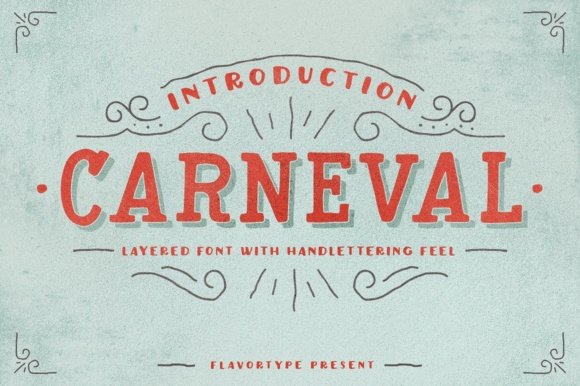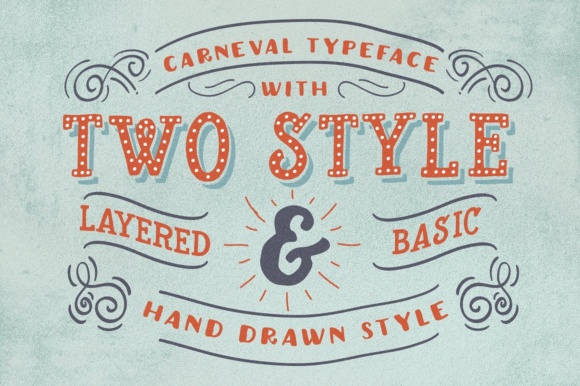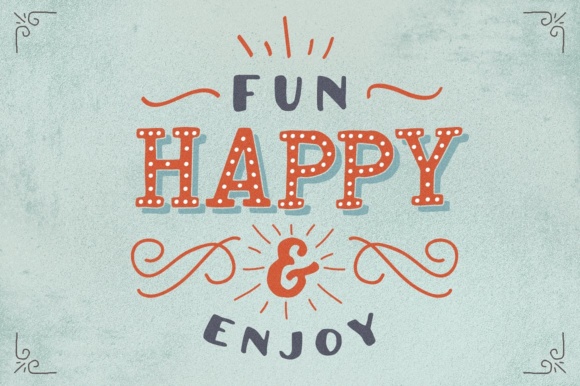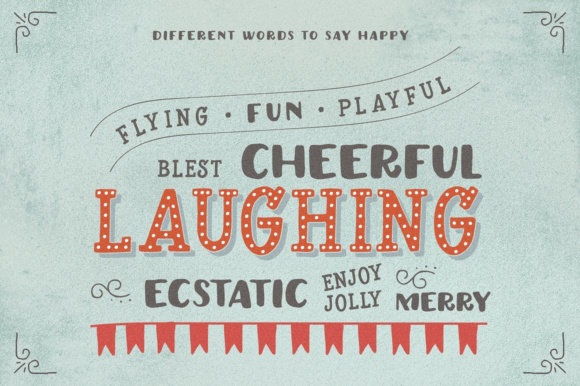
Get Ready to Step Right Up: Introducing the Carneval Font
Have you ever found yourself wandering through a bustling carnival, surrounded by vibrant colors, lively music, and the sweet scent of sugary treats? The thrill of the unknown and the excitement of discovery can be a powerful spark for creativity. And what if you could capture that same sense of whimsy and playfulness in your designs? Enter the Carneval Font, a delightful typographic creation that embodies the spirit of the carnival.
The Carneval Font comes in two styles, each with its own unique charm, allowing designers to tap into the carefree and eclectic nature of carnivals. Whether you’re working on a project that requires a touch of nostalgia or a dash of modern flair, this font is the perfect companion. By incorporating the Carneval Font into your designs, you can add a touch of magic and wonder that’s sure to captivate your audience.
Carneval Font Key Features
- Font Family: Carneval
- Unique Characteristics:
- Playful, carnival-inspired design
- Perfect for creating eye-catching and festive typography
- Works well for headings, titles, and short text blocks
Carneval Font Review
Overall, I think Carneval is a fun and vibrant font that can be a great addition to the right project. ✨
- Carneval has a great energy and playfulness to it, making it perfect for creative or festive projects. ✨
- The font is highly customizable, allowing you to adjust the colors, textures, and more to fit your design. ✨
- Carneval is a versatile font that can be used for a variety of projects, from posters to invitations to website headers. ✨
- Carneval may be too loud or overwhelming for more subtle or minimalist designs. ⚠️
- The font can be difficult to read at smaller font sizes, which may limit its use in certain contexts. ⚠️
- While customizable, Carneval may not be suitable for projects that require a more professional or corporate tone. ⚠️
Overall, I think Carneval is a great choice for projects that need a fun and energetic vibe, but it may not be the best fit for every design. With some careful consideration and planning, it can be a valuable addition to your design toolkit.
Tips for Getting the Most Out of Carneval Font
Here are some tips to get the most out of Carneval Font:
- Experiment with different font sizes and styles to create visual interest
- Combine Carneval Font with other fonts for a unique look
- Use Carneval Font for titles and headings to make them stand out
Carneval Font is suitable for:
- Graphic designs (e.g., posters,